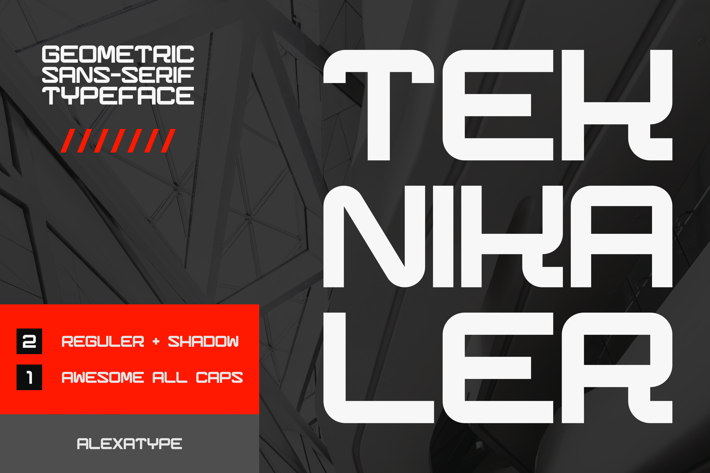
Teknikaler - Geometric Sans Serif Font
TEKNIKALER is a futuristic, high-tech display font designed for modern branding, industrial aesthetics, and cutting-edge technology visuals. With its geometric letterforms, strong angles, and structured precision, this font is perfect for sci-fi posters, tech branding, esports, and automotive design. Whether you're crafting cyberpunk-style layouts, speed-driven graphics, or innovative corporate visuals, TEKNIKALER delivers an advanced, sleek aesthetic with a powerful presence.
Key Features
Futuristic & Industrial Design – Inspired by technology, sci-fi, and modern engineering.
Sharp, Geometric Letterforms – Delivers a sleek, structured, and high-impact look.
Perfect for Tech & Automotive Branding – Ideal for logos, esports visuals, and futuristic packaging.
Optimized for Digital & Print – Works great in headlines, UI design, and motion graphics.
TEKNIKALER is built for tech startups, esports teams, and high-performance industries. Its structured, modern look makes it perfect for software branding, industrial signage, and sci-fi aesthetics. Whether you’re working on game UI designs, cyberpunk artwork, or futuristic advertising, TEKNIKALER gives your designs a bold, high-tech edge that demands attention.